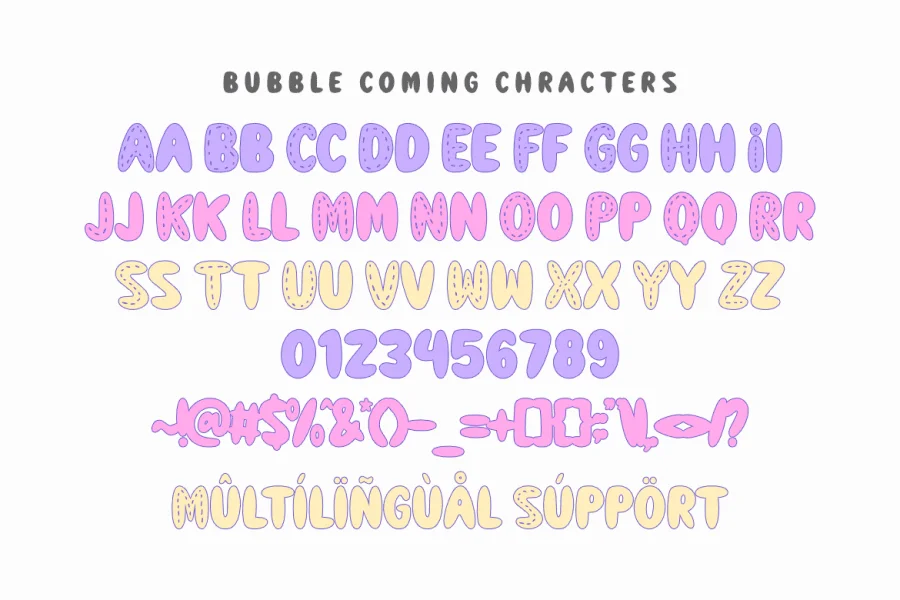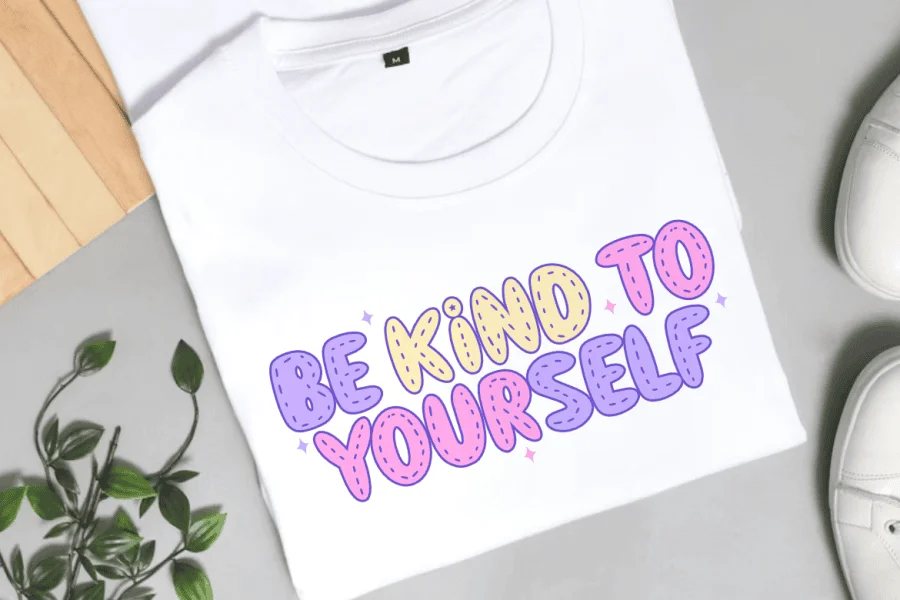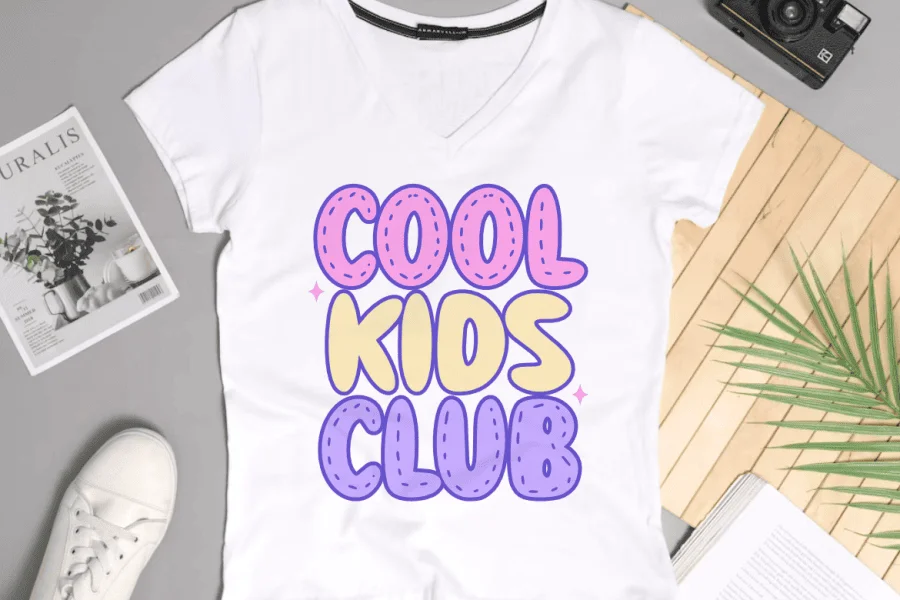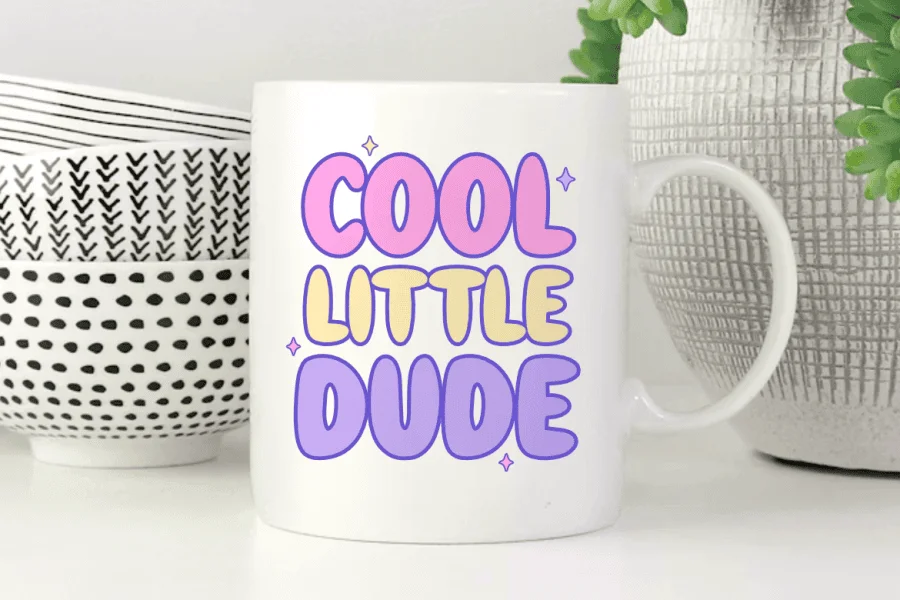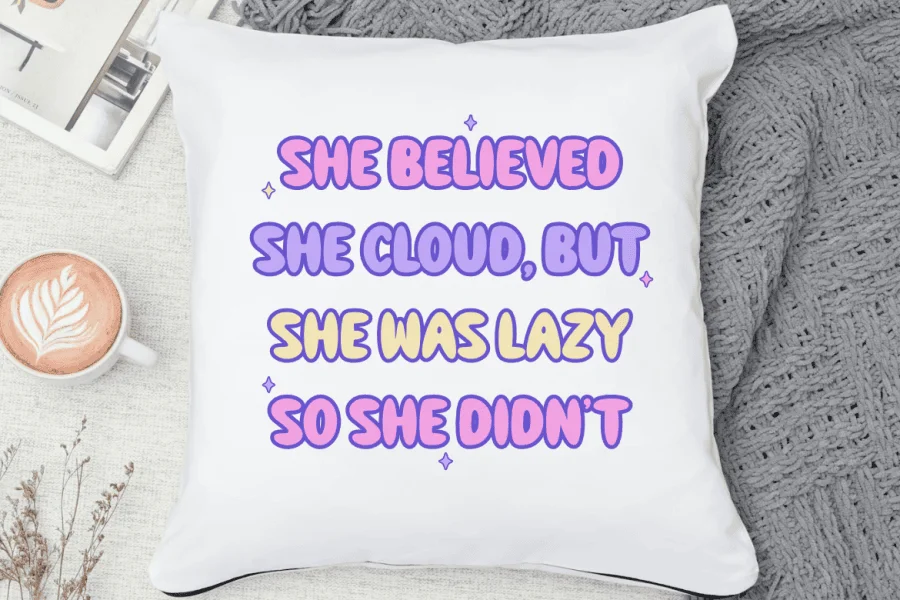
Bubble coming is a retro bubble display font inspired by cozy, handcrafted plush toys and playful stitched textile patterns. This typeface features charming, rounded letterforms adorned with a unique stitched-detail texture that brings an authentic, artistic, and tactile feel to your creative projects. The bold and friendly structure is perfectly optimized for the crafting community, ensuring a fun and creative experience for all your vinyl and digital cutting projects.
Perfect for: creating high-converting SVG cut files, personalized children's clothing, adorable textile-themed stickers, embroidery-inspired designs, custom nursery wall art, and playful branding projects. Whether you are running a professional Print on Demand (POD) shop or creating a special DIY gift, this font adds a touch of cozy, whimsical personality to every design.
Great for holiday themes such as Birthdays, Baby Showers, Children's Day, and Cozy Winter celebrations, adding a soft, optimistic, and handcrafted vibe to all your seasonal projects!